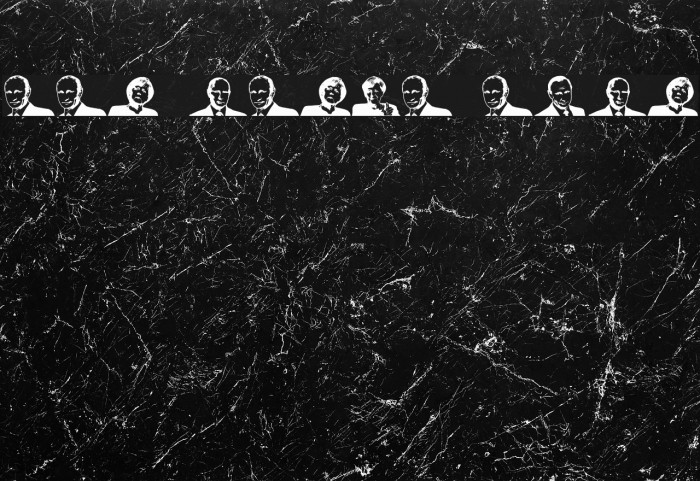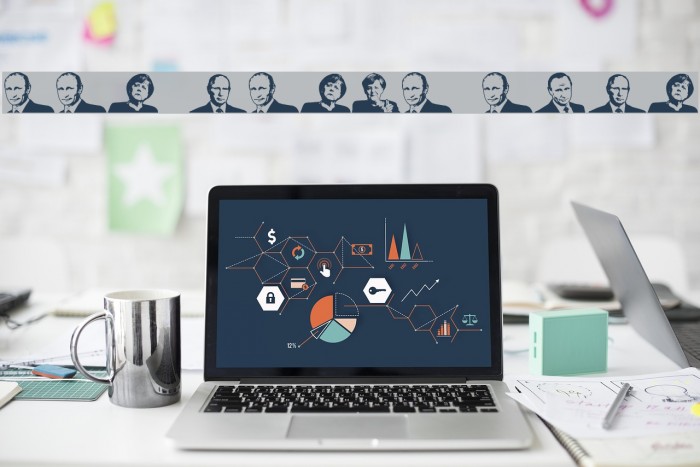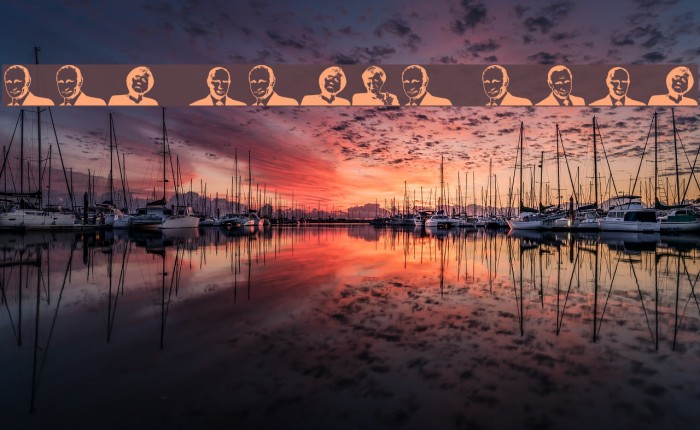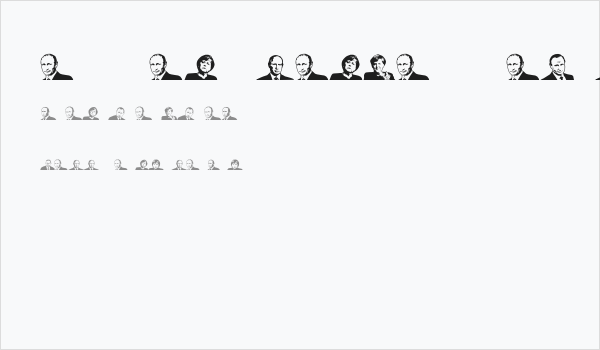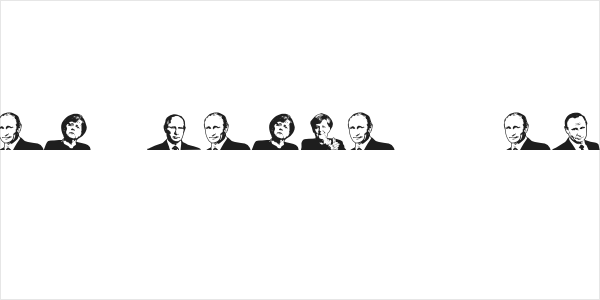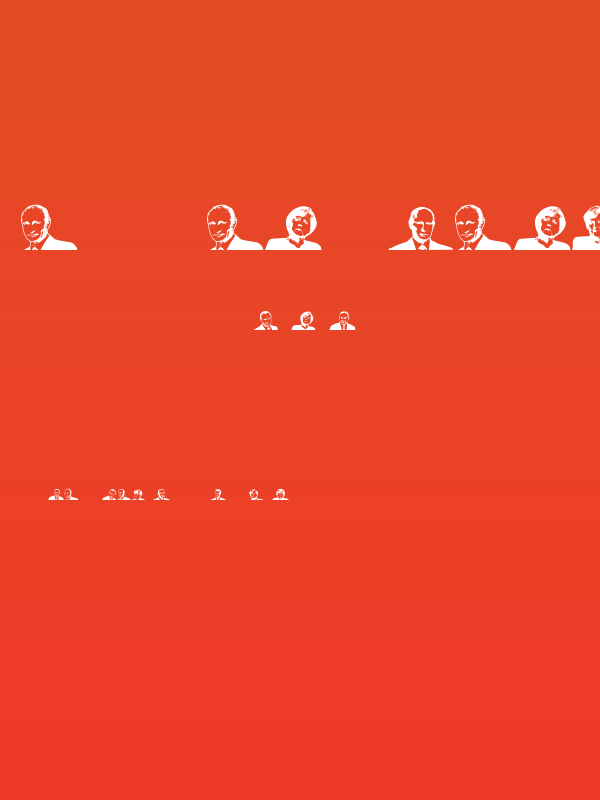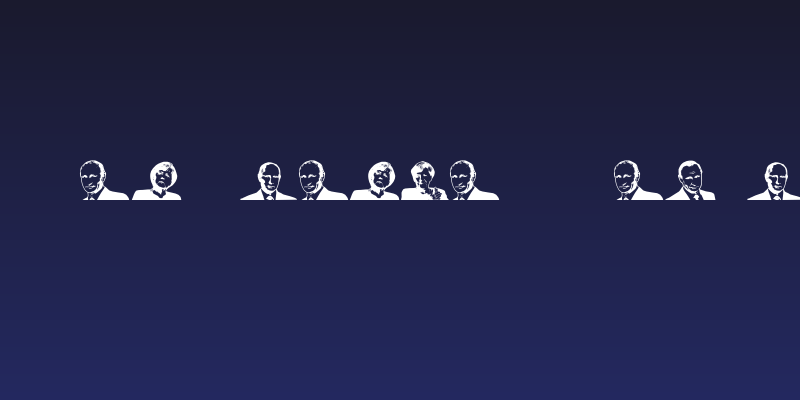
European Leaders Regular Font
European Leaders Regular Description
This is not a traditional font; it consists of black-and-white illustrated portraits of individuals, each representing a character slot, rather than standard alphanumeric glyphs.
| Overall Style | Decorative, Illustrative, Novelty |
| Use Case | Display, Themed graphics, Editorial design |
| Proposed Projects | Novelty posters, political satire, editorial illustrations, themed event graphics. |